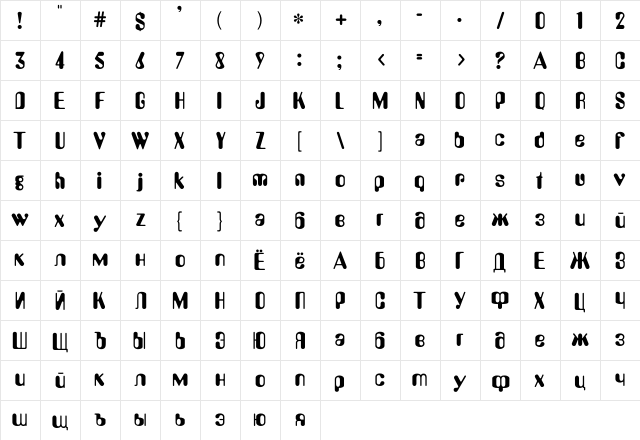
Amelia_DG Regular
Design Context for Amelia_DG Typeface
Amelia_DG is a composed and adaptable typeface that performs quietly and consistently across a wide range of design contexts.
Pro Tip: Use Amelia_DG in both headline and body roles to test its range before committing to a single application.